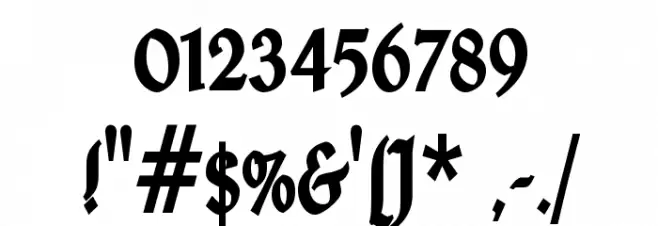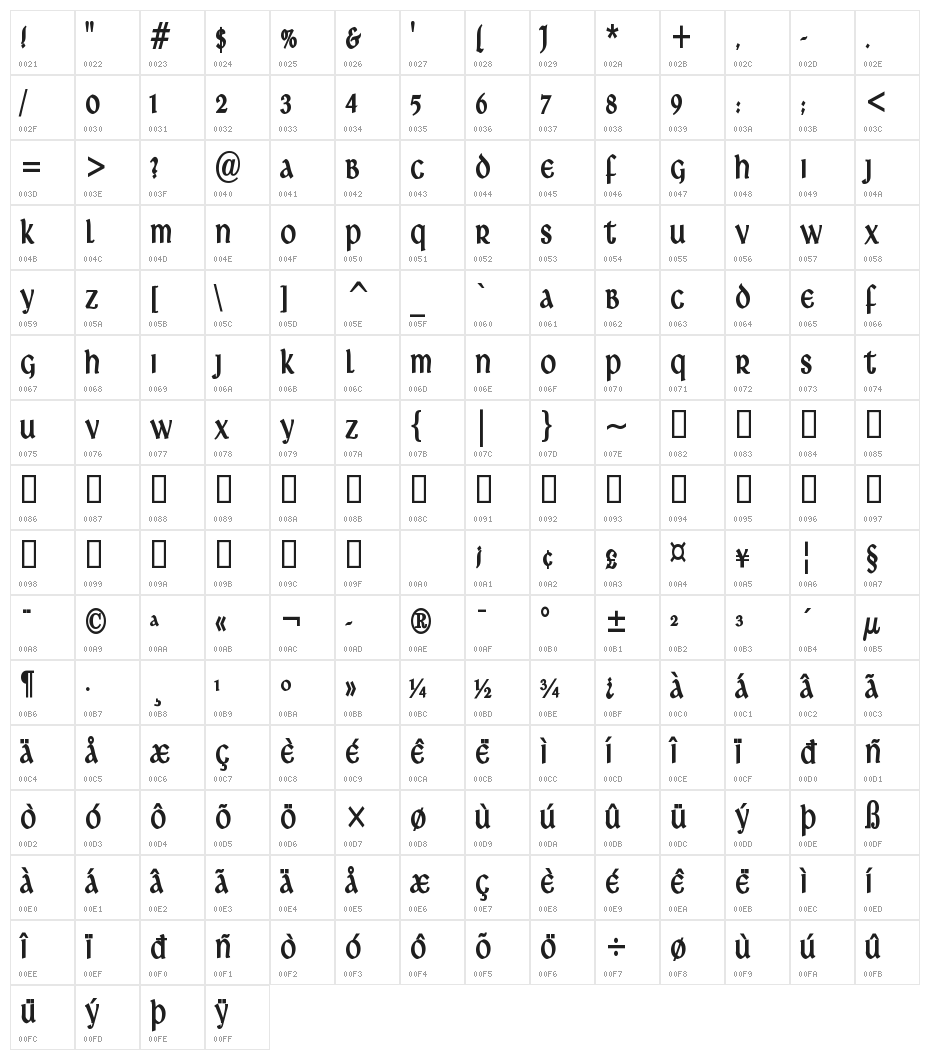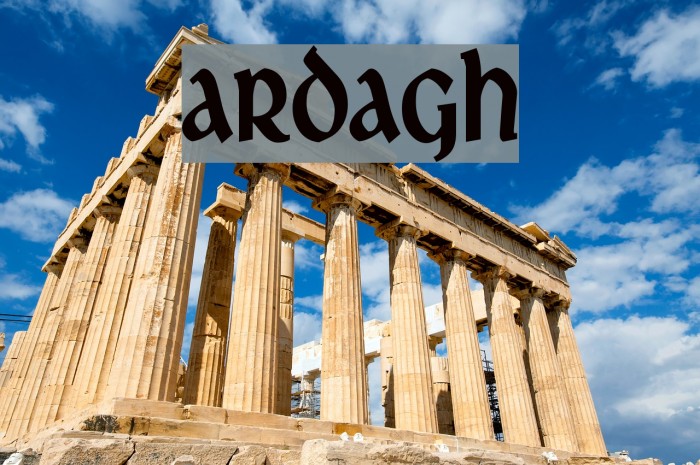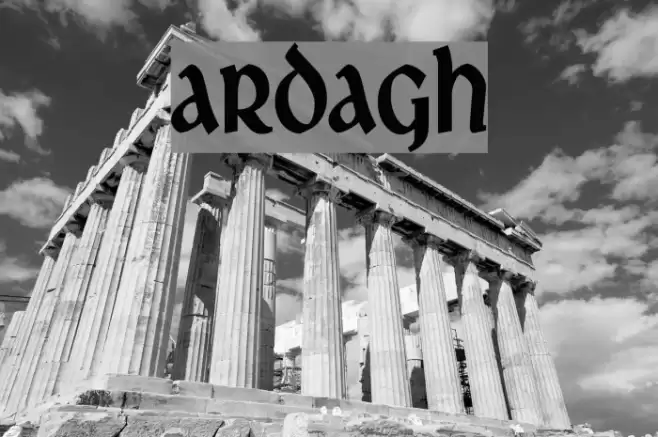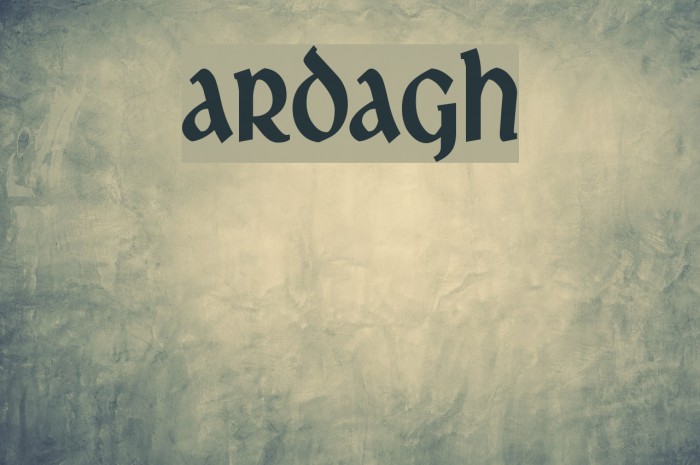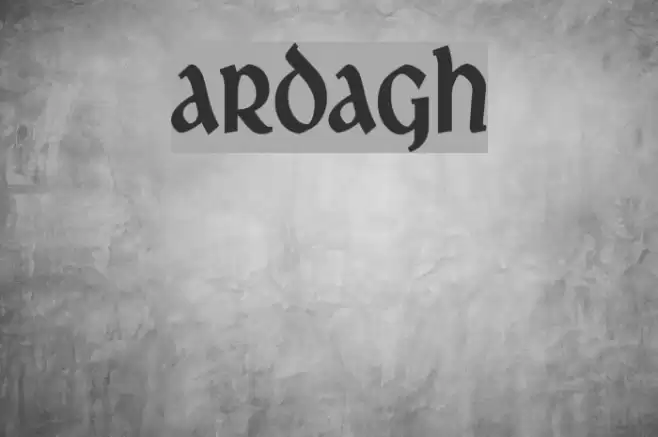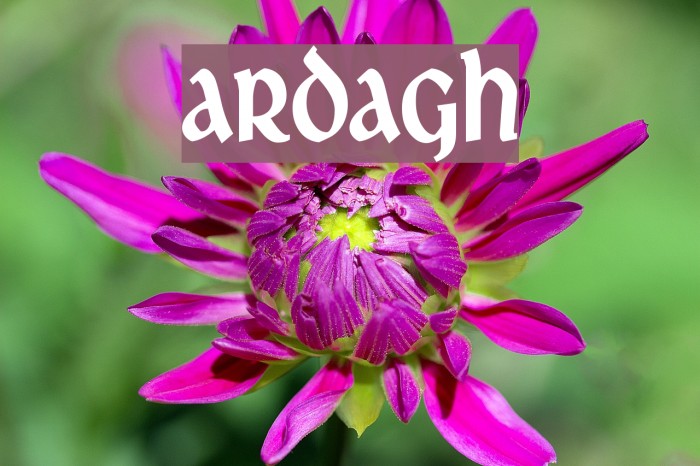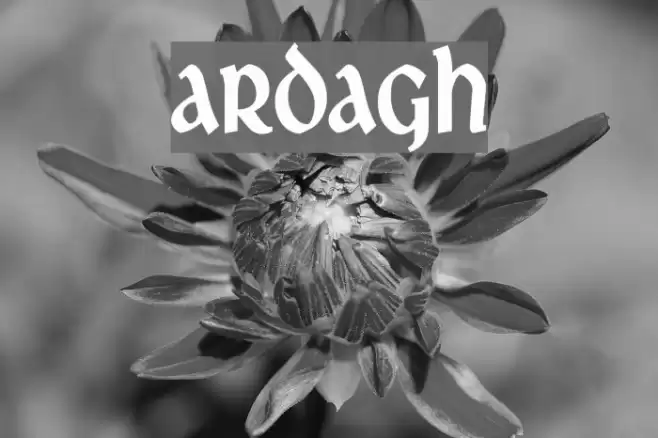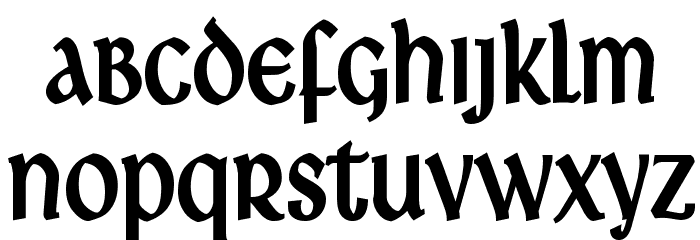
Ardagh Font
Ardagh Description
This font features a bold and distinctive style with a strong presence. The characters exhibit a unique blend of traditional and modern elements, characterized by sharp angles and smooth curves. The uppercase and lowercase letters maintain a consistent design, offering a cohesive look. The numerals are clear and legible, complementing the overall aesthetic. Special characters are well-integrated, adding versatility to the font. The design is reminiscent of historical scripts, yet it maintains a contemporary flair, making it suitable for a variety of applications.
| Proposed Projects | Ideal for branding, headlines, posters, and any project requiring a strong visual impact. |